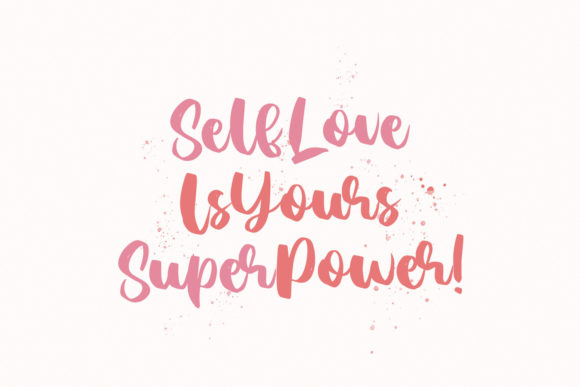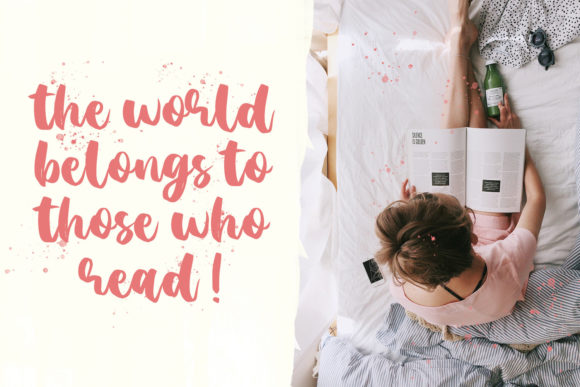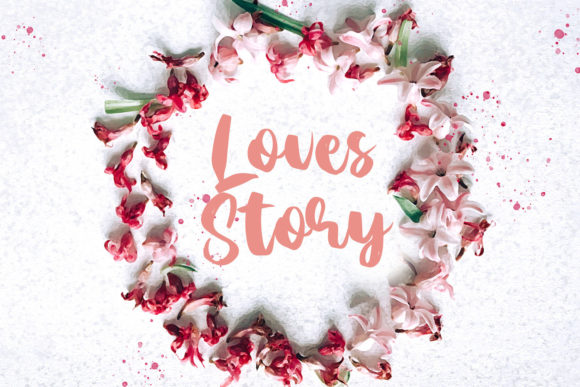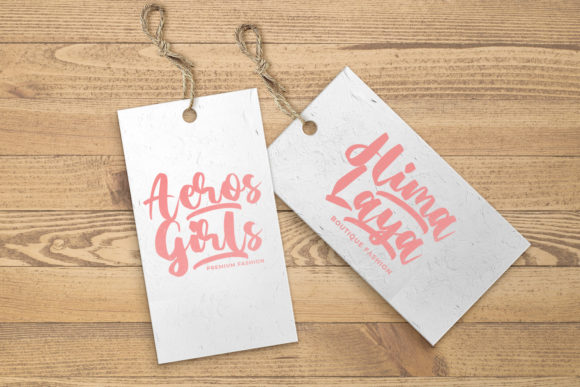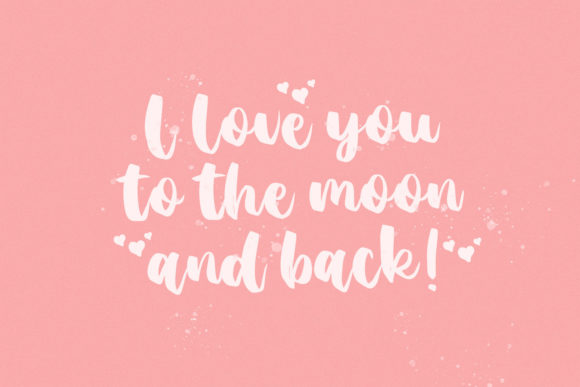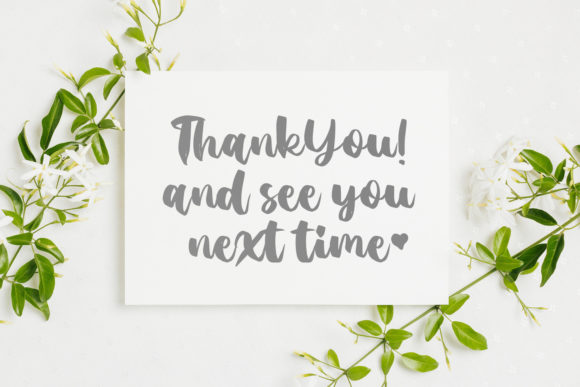
Introducing Agil Script Font: Elevate Your Designs with Charming Playfulness
Are you on the hunt for a font that injects a dose of playfulness and charm into your designs? Look no further than Agil Script Font. This lovely script font is designed to make your creative projects stand out with its unique, dancing characters that seem to leap along the baseline. Whether you’re a designer, crafter, or DIY enthusiast, Agil Script is poised to become your new go-to font for adding a touch of whimsy and elegance to your work.
The Charm of Agil Script Font
Agil Script Font boasts charming, playful characters that are sure to capture the hearts of designers and crafters alike. Its distinctive style is characterized by:
- Unique Character Design: Each letter in Agil Script is crafted with care, featuring intricate details and a lively appearance that sets it apart from more traditional fonts.
- Flowing Baseline: The characters in Agil Script seem to dance along the baseline, creating a sense of movement and fluidity that adds visual interest to any project.
- Playful yet Elegant: Despite its playful nature, Agil Script maintains an air of elegance, making it suitable for a wide range of applications, from wedding invitations to brand logos.
Adding Agil Script to Your Projects
Incorporating Agil Script Font into your designs is a straightforward process that can significantly elevate your creative output. Here are some ideas to get you started:
- Wedding and Event Stationery: Add a touch of romance and whimsy to wedding invitations, save-the-date cards, and other event stationery with Agil Script.
- Branding and Logos: Use Agil Script as a unique and memorable font for your brand’s logo or marketing materials, helping your business stand out in a crowded marketplace.
- DIY Crafts: Whether you’re creating handmade cards, scrapbooking, or working on other DIY crafts, Agil Script can add a personalized and charming touch to your projects.
- Digital Content: Incorporate Agil Script into your digital content, such as blog headers, social media graphics, and email newsletters, to add a playful and engaging element.
Why Choose Agil Script Font?
With so many fonts available, why should Agil Script be your top choice? Here are a few compelling reasons:
- Versatility: Agil Script’s unique blend of playfulness and elegance makes it suitable for a wide range of projects and applications.
- Readability: Despite its decorative nature, Agil Script remains highly readable, even at smaller sizes, making it perfect for body text and headlines alike.
- Uniqueness: In a sea of generic fonts, Agil Script offers a refreshing change of pace, allowing your designs to stand out and capture attention.
- Lovely script font with charming, playful characters
- Unique character design with intricate details
- Flowing baseline for a sense of movement and fluidity
- Suitable for a wide range of applications, from wedding stationery to brand logos
- Highly readable, even at smaller sizes